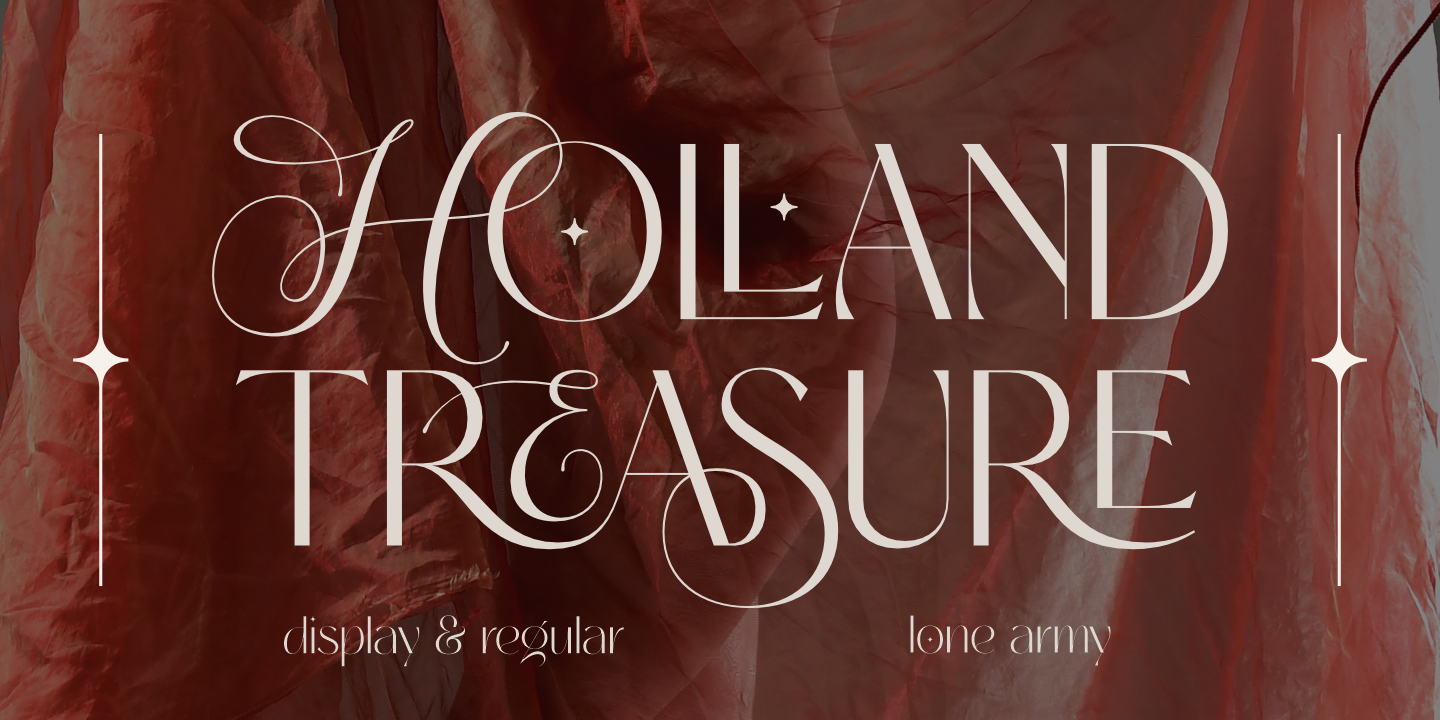
For a vintage-inspired, elegant serif typeface that exudes sophistication, Holland Treasure Font Free Download is a fantastic option. This font features refined letterforms with classic detailing, making it perfect for high-end branding, editorial design, invitations, and any project that calls for a touch of timeless luxury.
Holland Treasure combines strong, clean lines with intricate serifs, providing a blend of modern readability and vintage charm. Its elegant design is ideal for luxury product packaging, event invitations, premium branding, or even book covers. The distinctive serif detailing adds a sense of prestige and authenticity to any design.
Whether you're working on a creative project, an upscale brand identity, or designing materials that need to convey class and distinction, this font helps you elevate your typography.